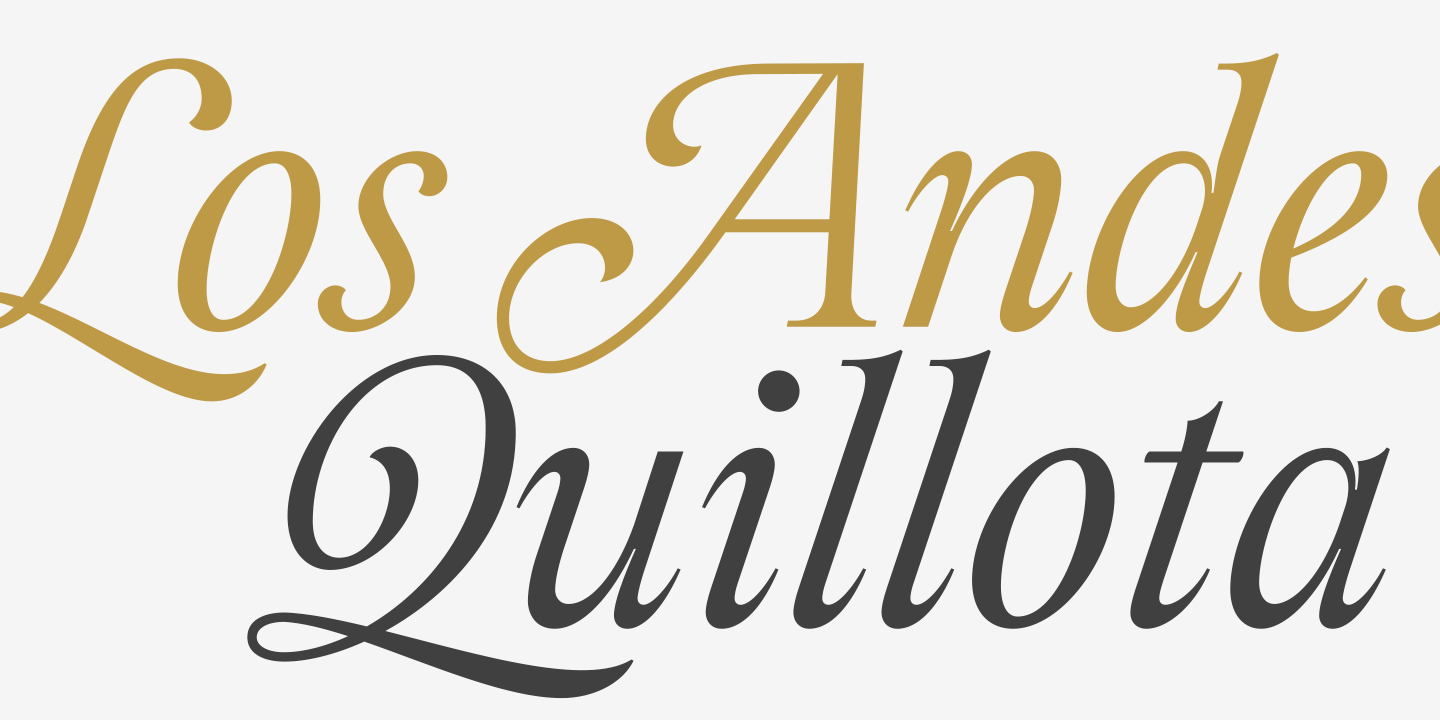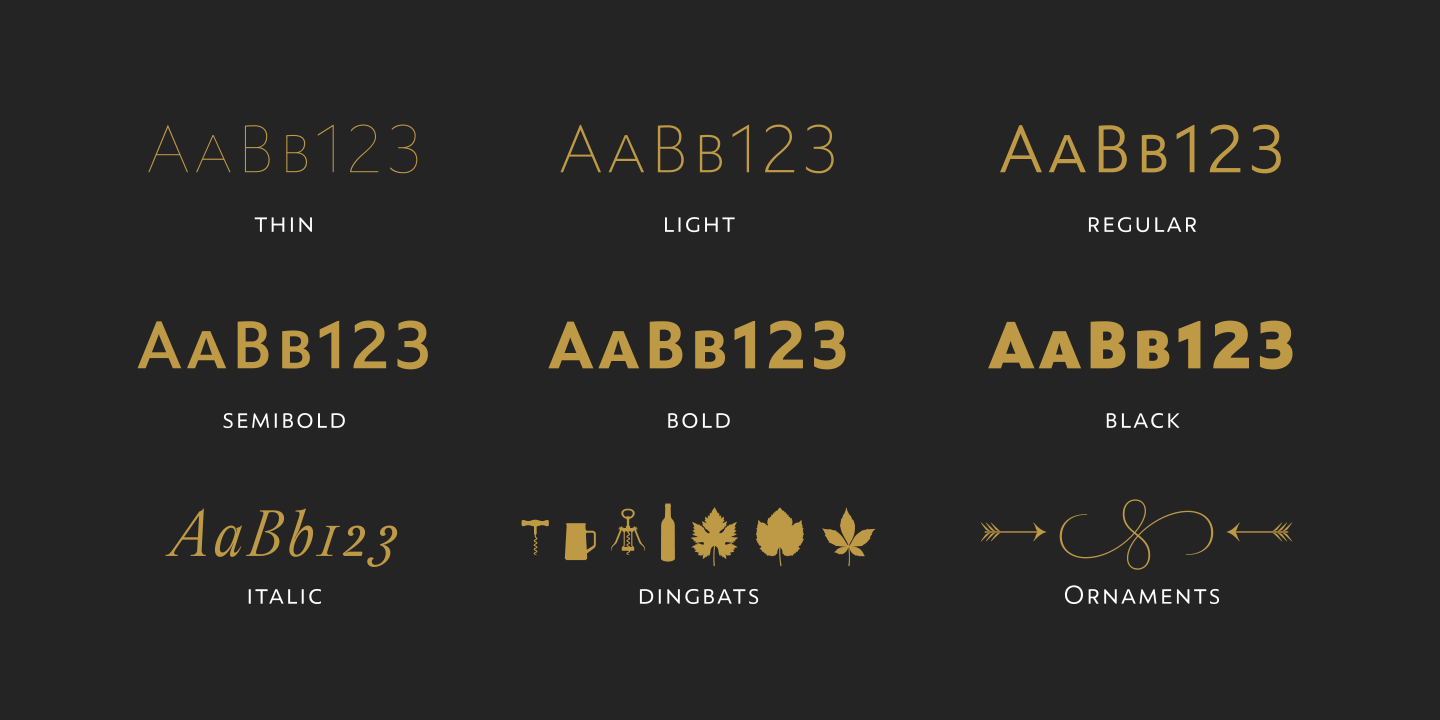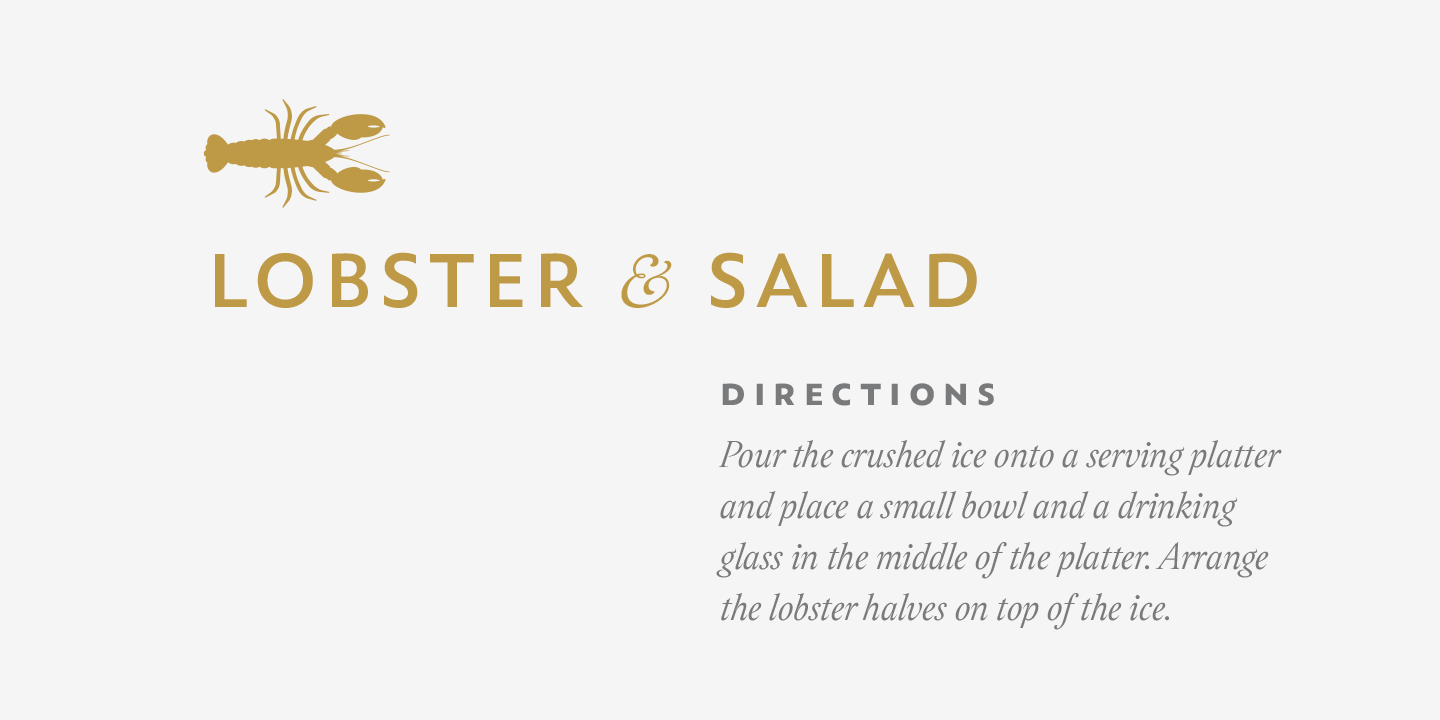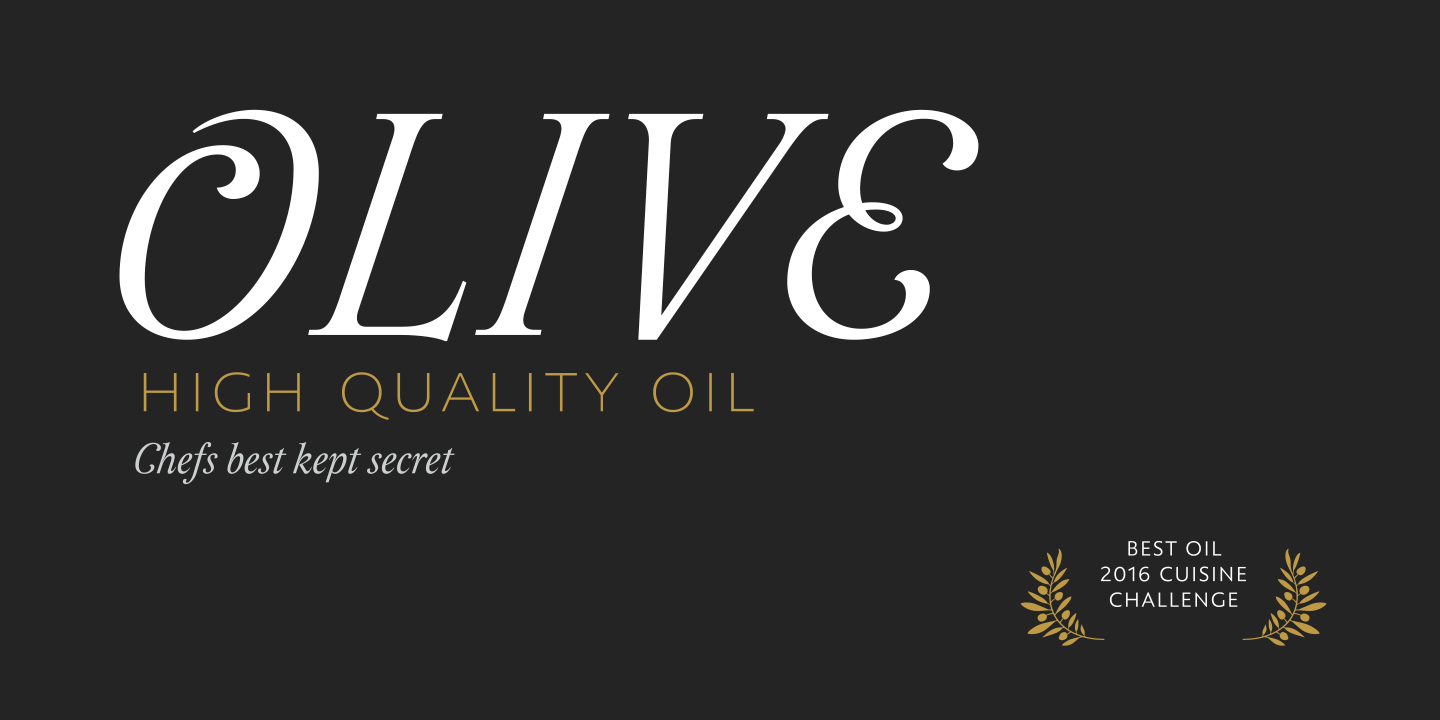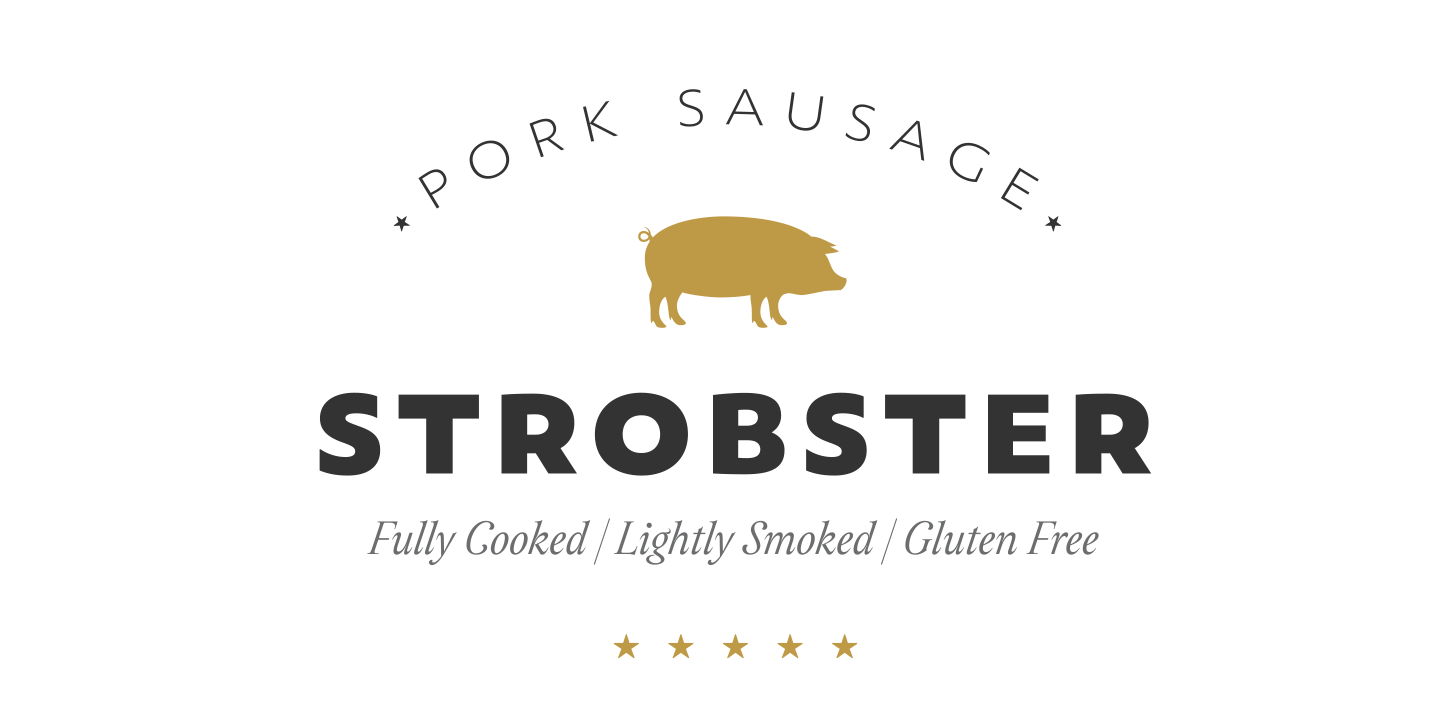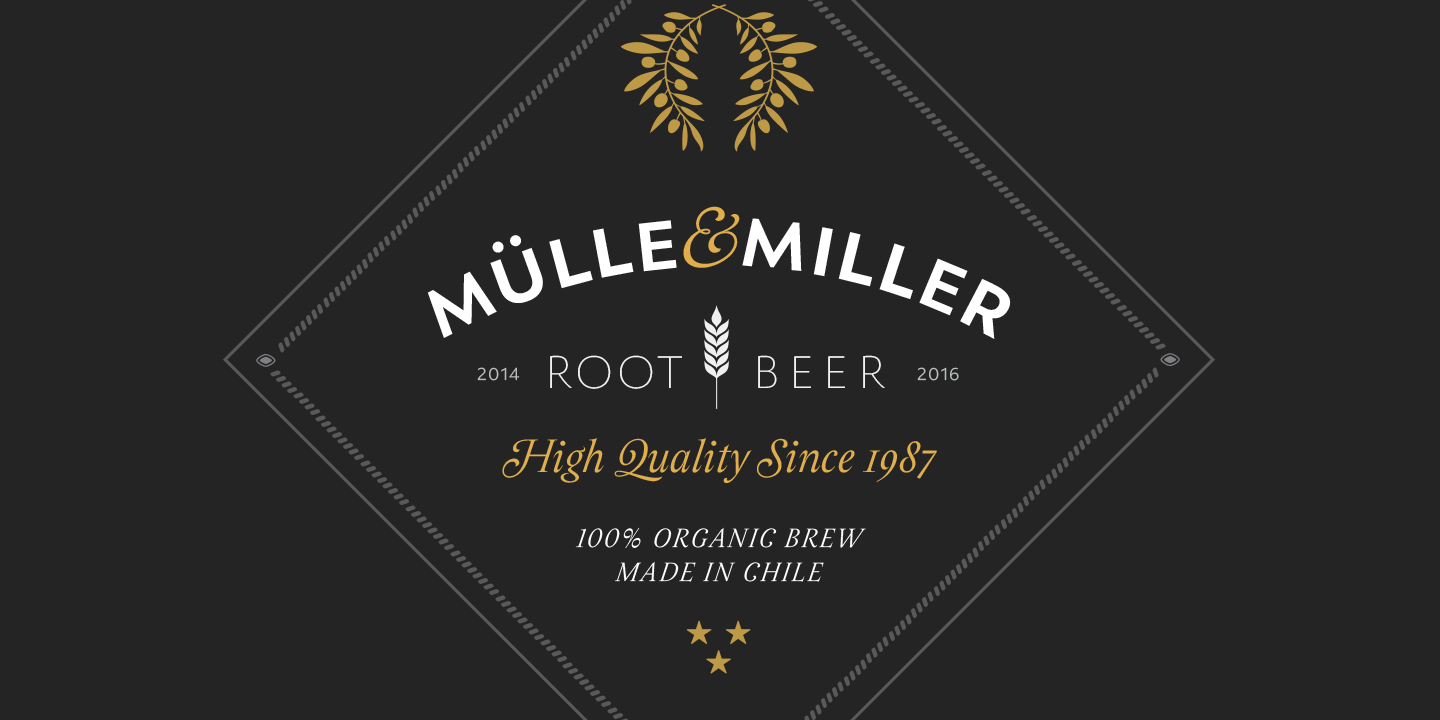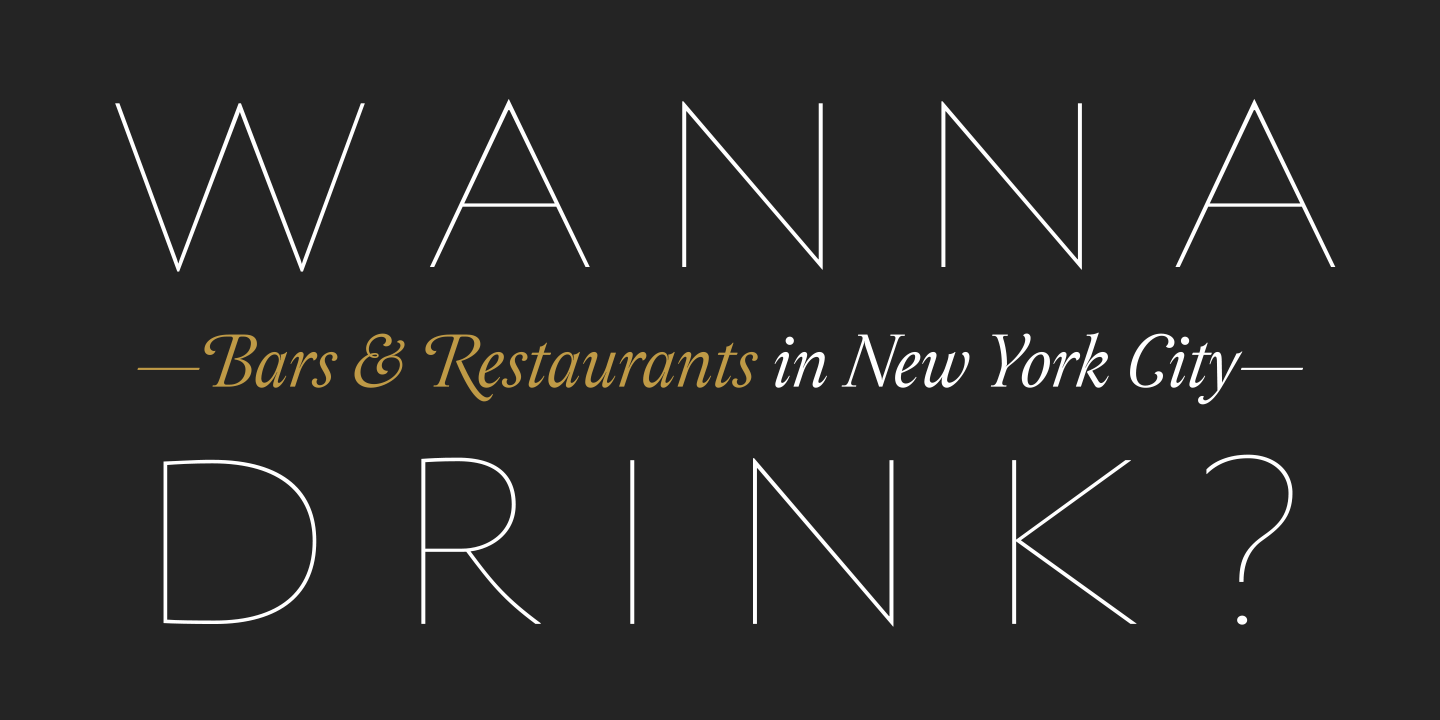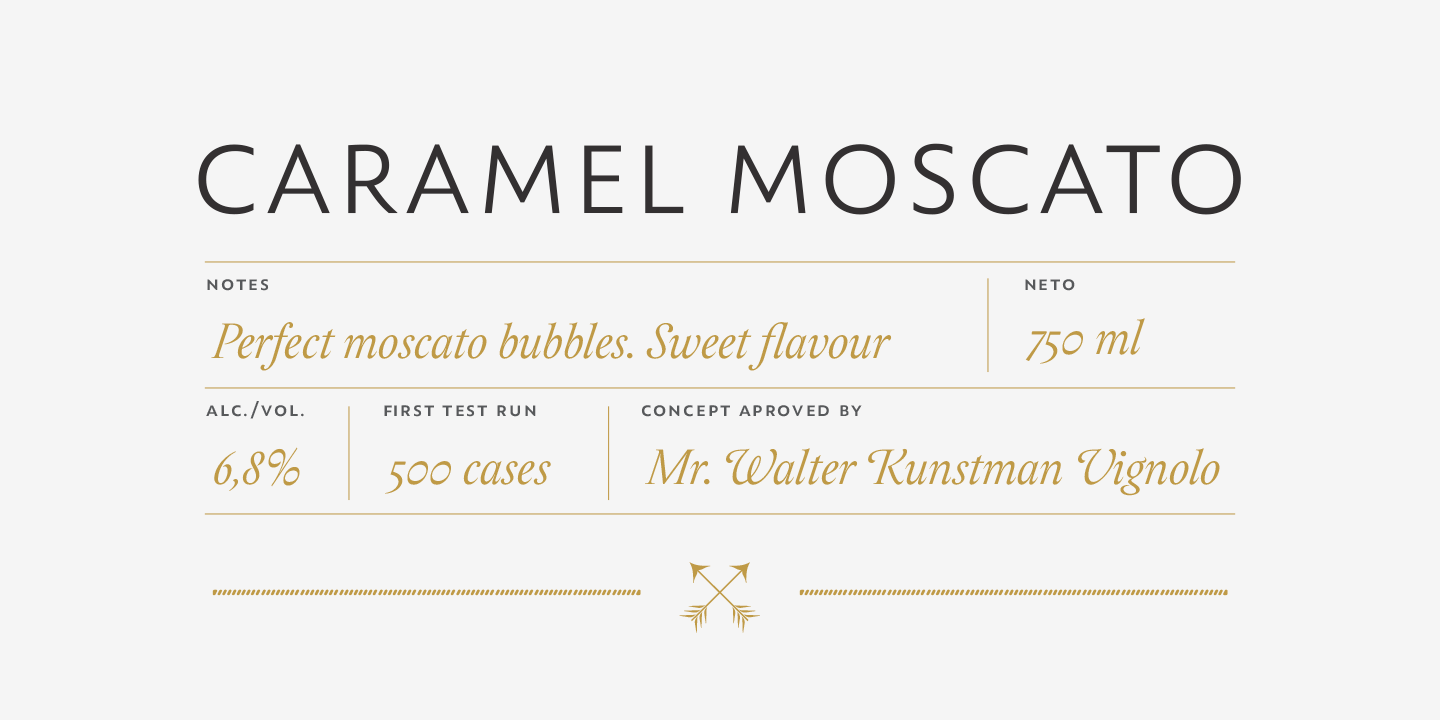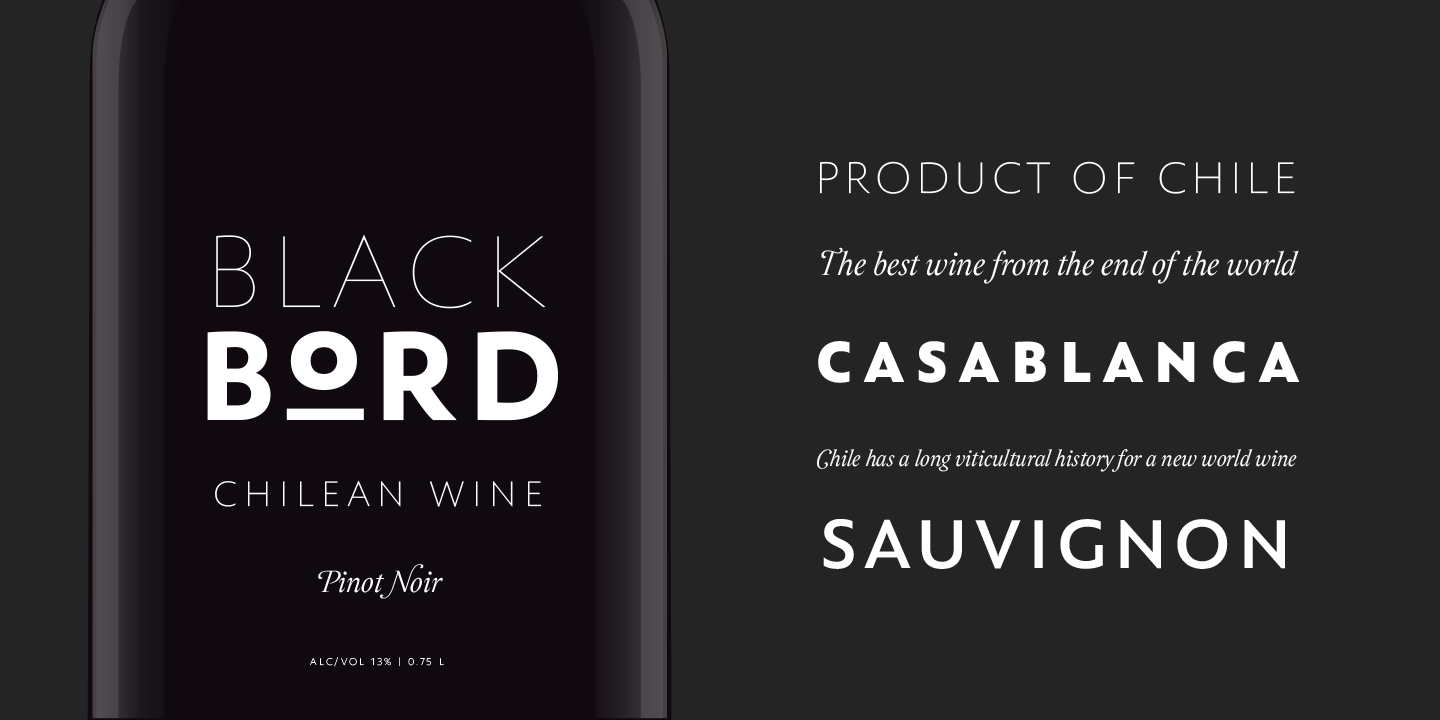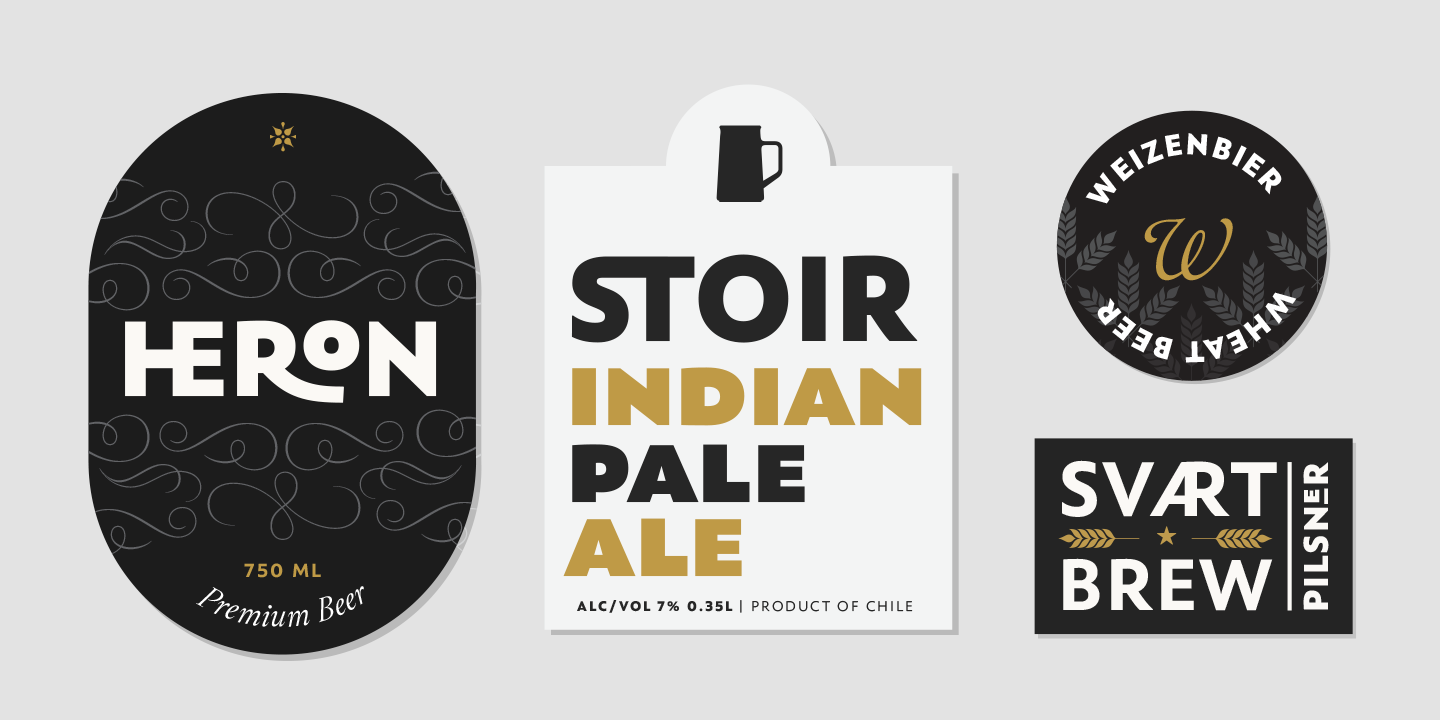
Designed by Daniel Hernández, Alfonso García, Bruno Jara Ahumada and Luciano Vergara.
Assemblage is a typeface-inspired by Roman square capitals-that comes in 6 different weights and ranging from Thin to Black. The background of the typeface makes it well-suited for branding, short text, titles and complex compositions, thanks to its italic version. Contrary to some conservative fonts, Assemblage includes an italic version with a look based on Elzeverian and Dutch Barroque typefaces, what gives the font an extra dash of elegance, resulting in a very enjoyable design. The family was specially created for labelling wine bottles and general packaging.
Assemblage is a font collection consisting of a Sans Serif plus an Italic version of classic features. The family comes in 6 weights and includes ligatures, caps and small caps plus 3 sets of smaller small caps for different kinds of composition. The Italic version-with strong decorative features-comes with swashes. Assemblage also includes a set of dingbats, especially designed for packaging as well as for publishing or branding.
The Sans contains 979 characters and the Italic version 620 characters. Assemblage supports 212 different languages and its OpenType features include ligatures, semi oldstyle figures, 3 sets of ornamental small caps (in the Sans version), swashes, ending forms and alternates in the Italic version.